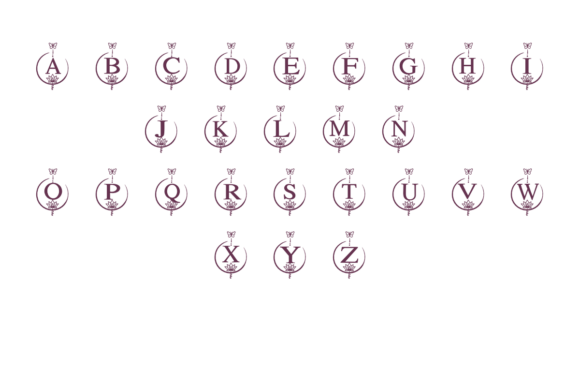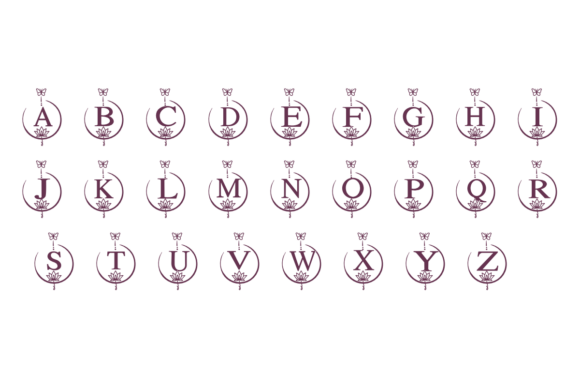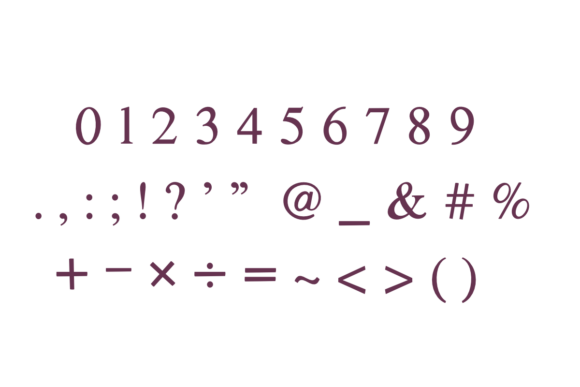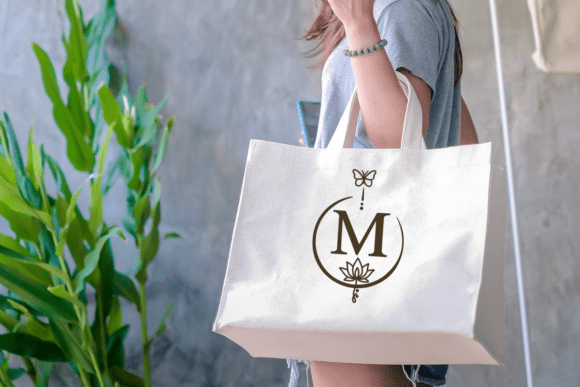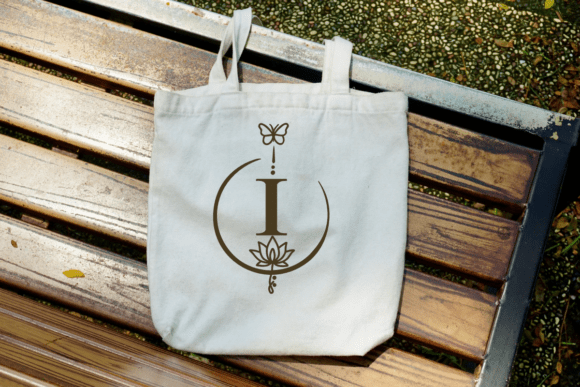
Unleash Your Creativity with the Butterfly and Lotus Font
Do you ever find yourself scribbling down ideas in the middle of the night, inspired by a burst of creativity? Maybe it’s a poem, a story, or a sketch – whatever it is, it’s yours to express. And what better way to capture those fleeting moments than with a beautiful font that speaks to your soul?
Meet the Butterfly and Lotus Font, a stunning decorative font designed to bring your written words to life. Whether you’re writing a heartfelt diary entry, crafting a handmade greeting card, or creating a visually striking social media post, this font is the perfect companion for your creative journey. With its elegant, whimsical design, the Butterfly and Lotus Font is a valuable addition to any designer’s toolkit, offering endless possibilities for self-expression and artistic exploration.
Butterfly and Lotus Font Key Features
- Font Family: Butterfly and Lotus is a unique font family consisting of 2 fonts: Butterfly and Lotus.
- Unique Characteristics: The font features intricate, hand-drawn designs inspired by Asian art, with delicate lines and subtle details.
Designer Review: Butterfly and Lotus Font
The Butterfly and Lotus Font is a unique and visually appealing font that catches the eye. It’s perfect for adding a touch of elegance and sophistication to your designs.
- Beautiful and intricate design elements, especially the lotus flower motif.
- Smooth and flowing lines, making it easy to read and aesthetically pleasing.
- Great for use in invitations, wedding stationery, and other formal or luxury branding.
- May not be suitable for use in headings or titles due to its delicate and intricate design.
- Not ideal for use in digital products or apps where readability is a top priority.
- May require some additional styling to make it work well in different font sizes and resolutions.
The Butterfly and Lotus Font is a lovely addition to any designer’s toolkit. While it may have some limitations, its unique beauty and elegance make it a great choice for the right projects. With some careful consideration and styling, this font can add a touch of magic to your designs.
Use the Butterfly and Lotus Font to add a touch of elegance and sophistication to your designs.